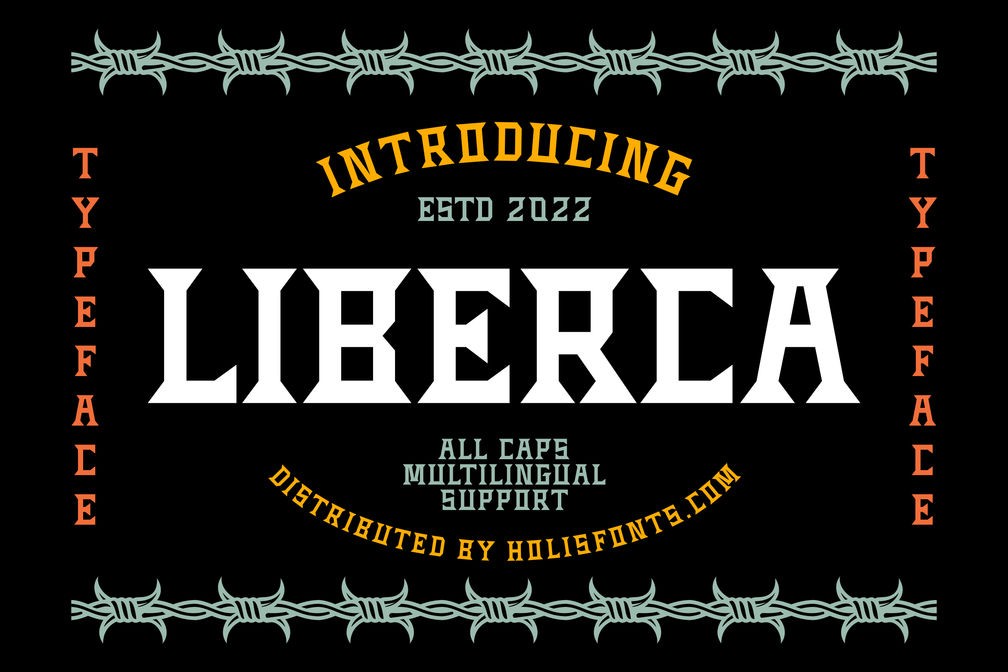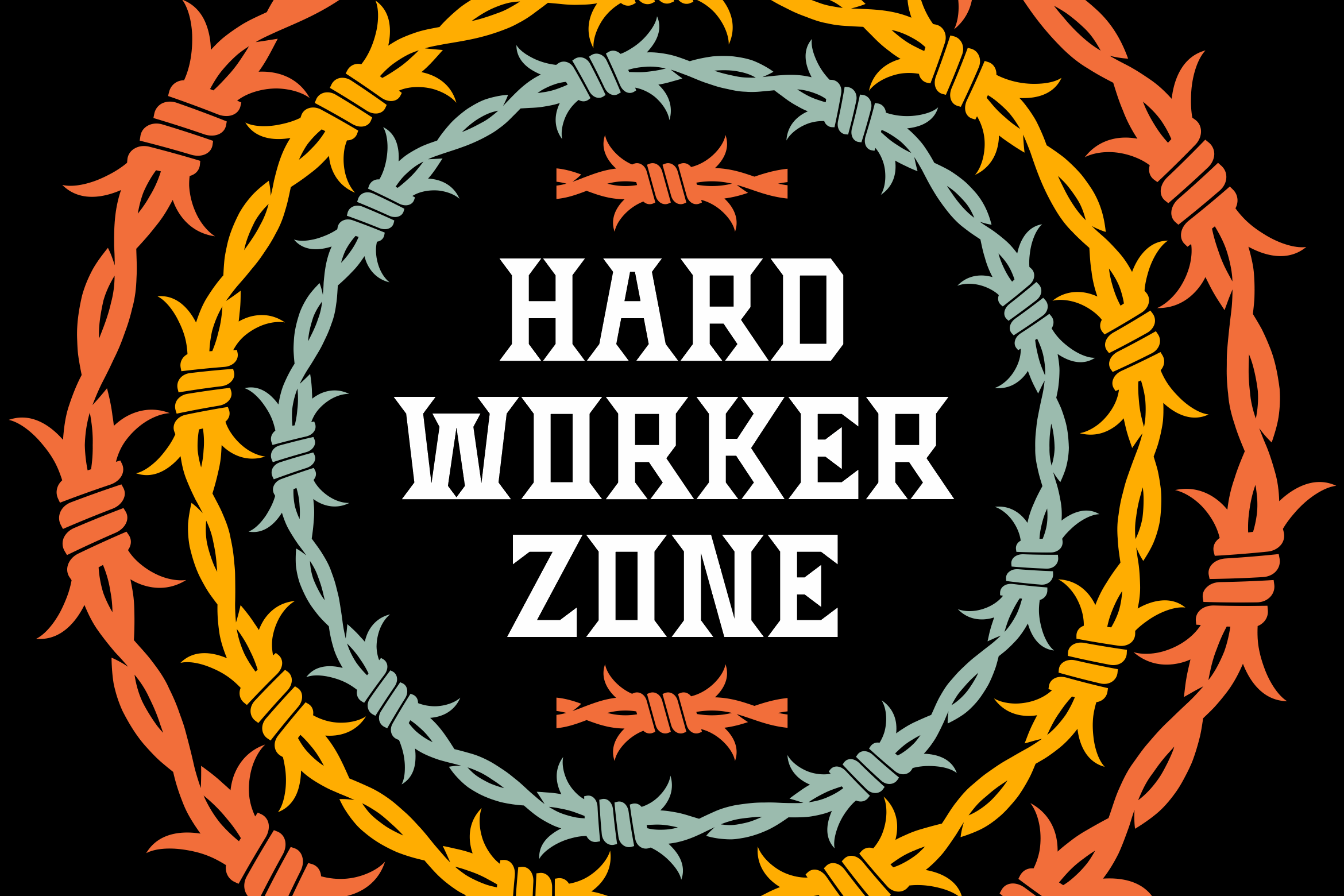
Free Font Liberca Typeface
The Liberca font is a font inspired by the pairing fonts of Victorian-style posters, suitable for use as headline fonts, label designs, poster designs, supporting fonts in illustrations, logo fonts and others. You must have it!
• All Caps Character A-Z and a-z
• Numeral
• Punctuation
• Symbol
• Multilingual Support.